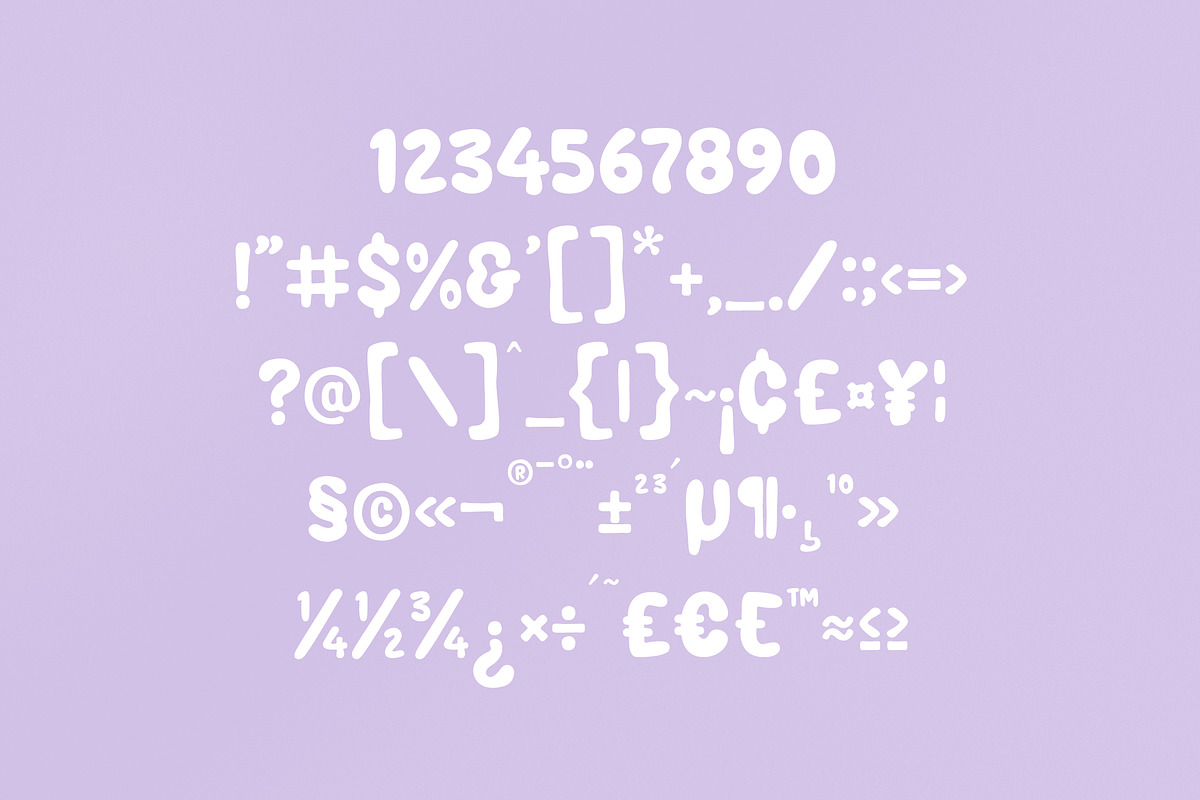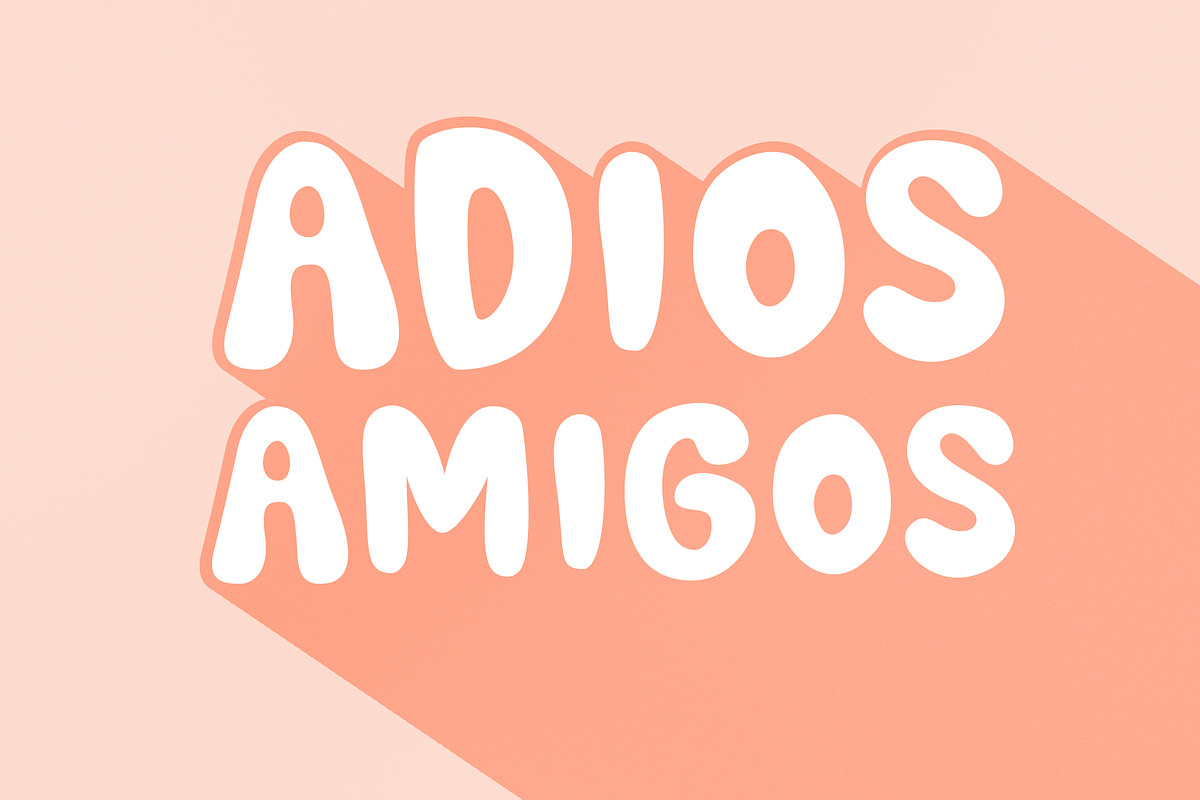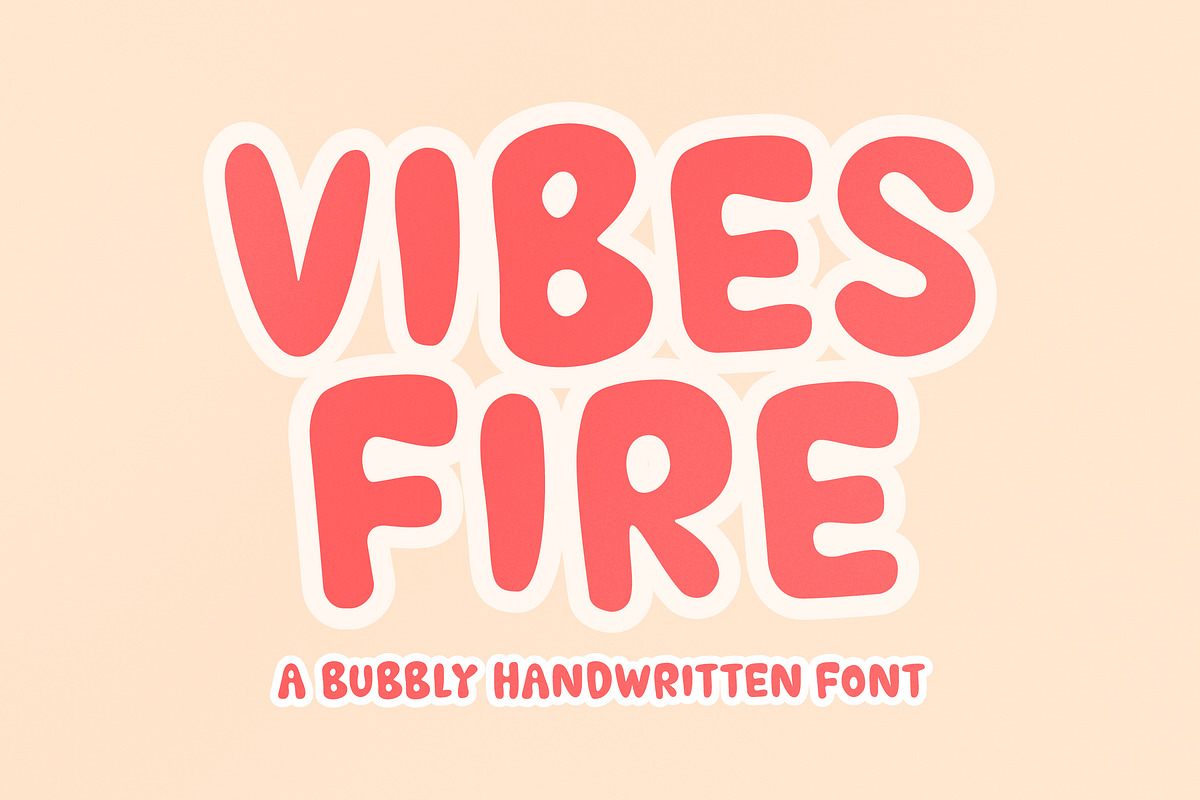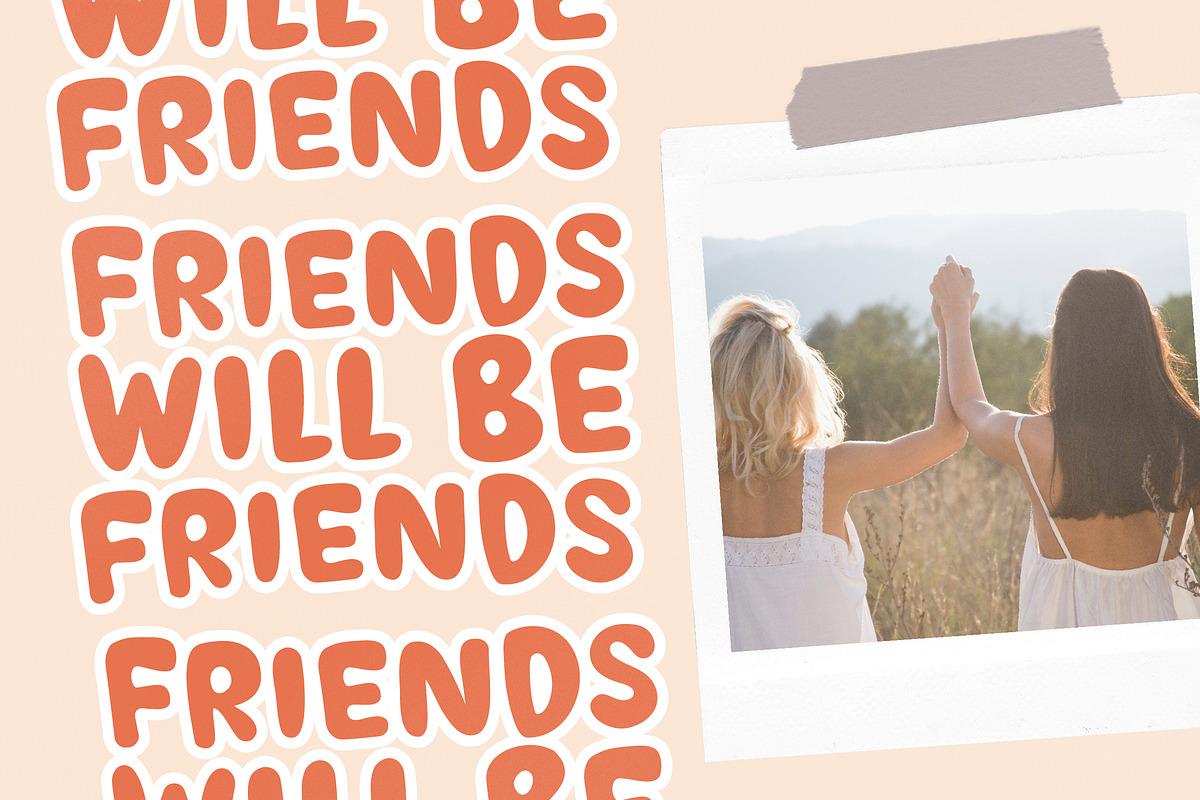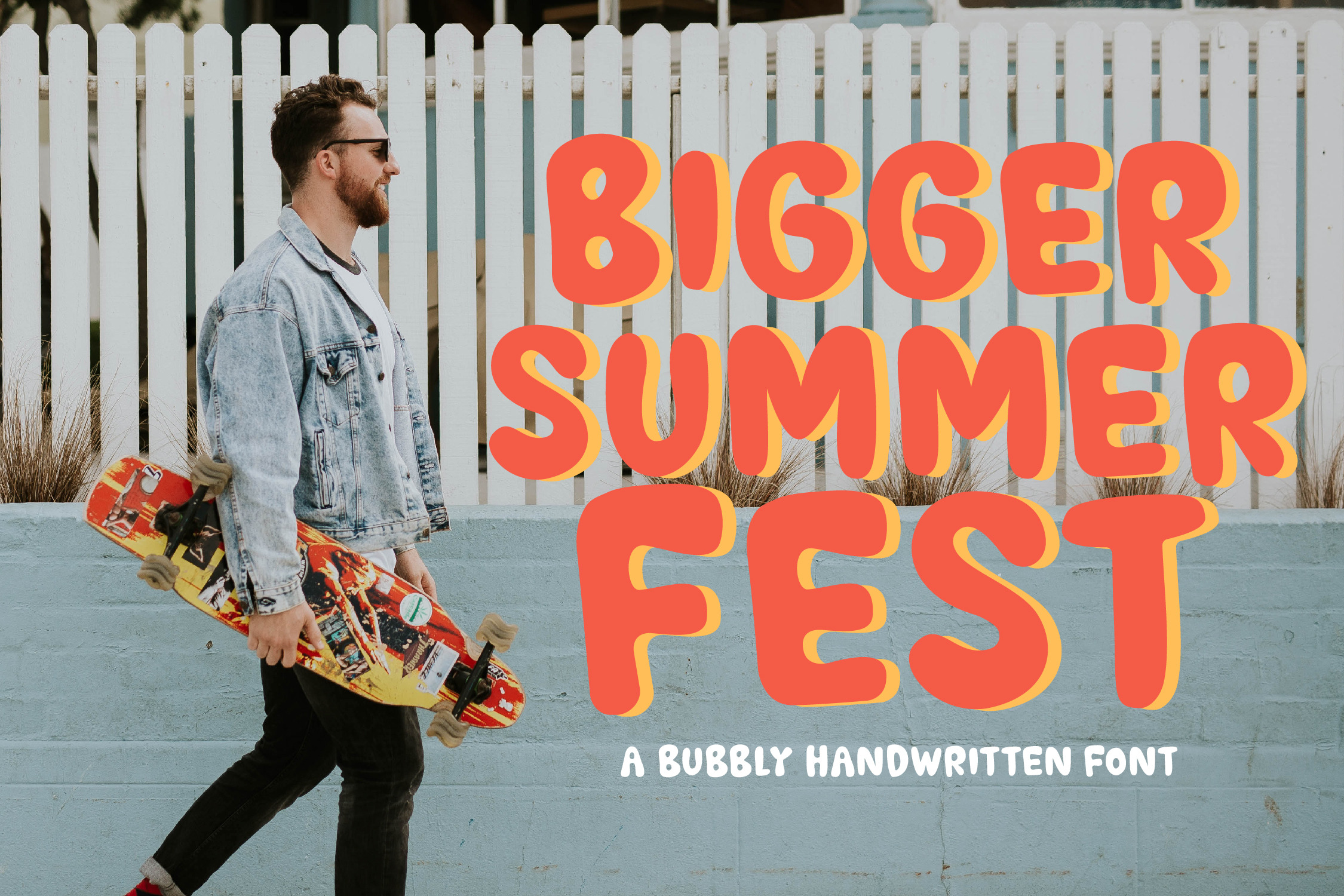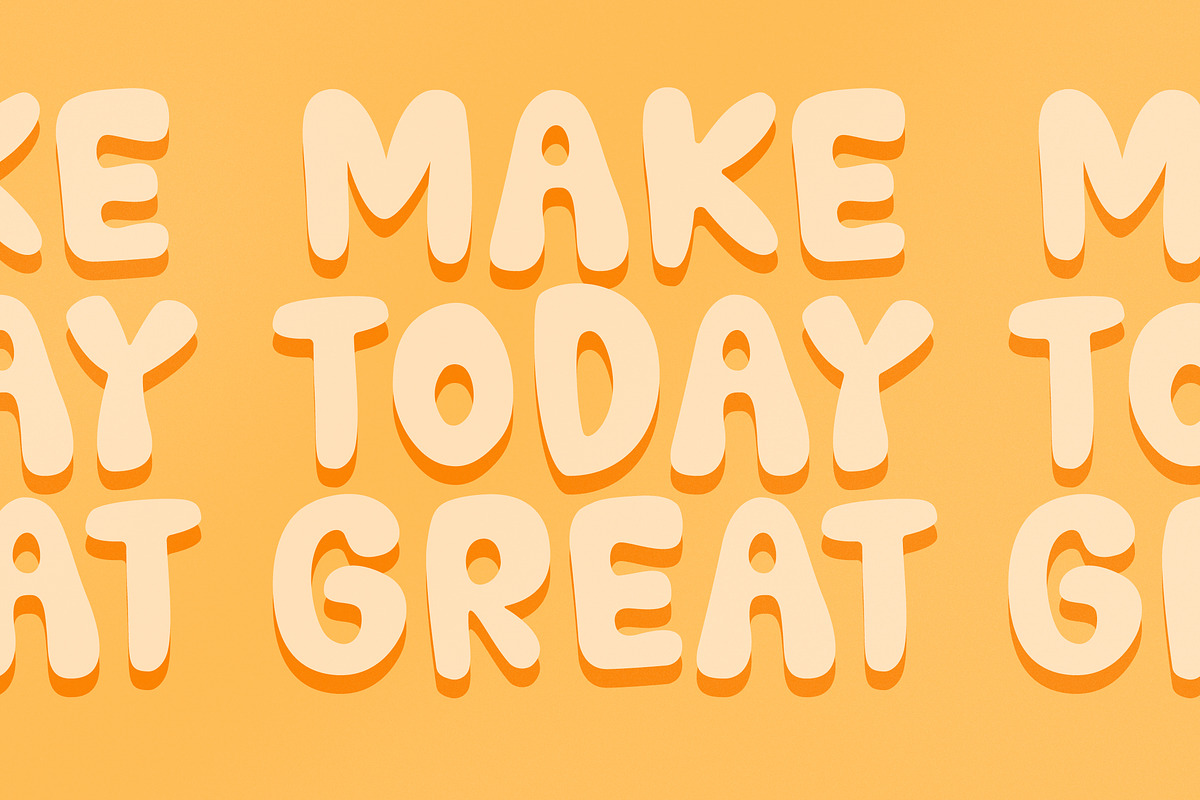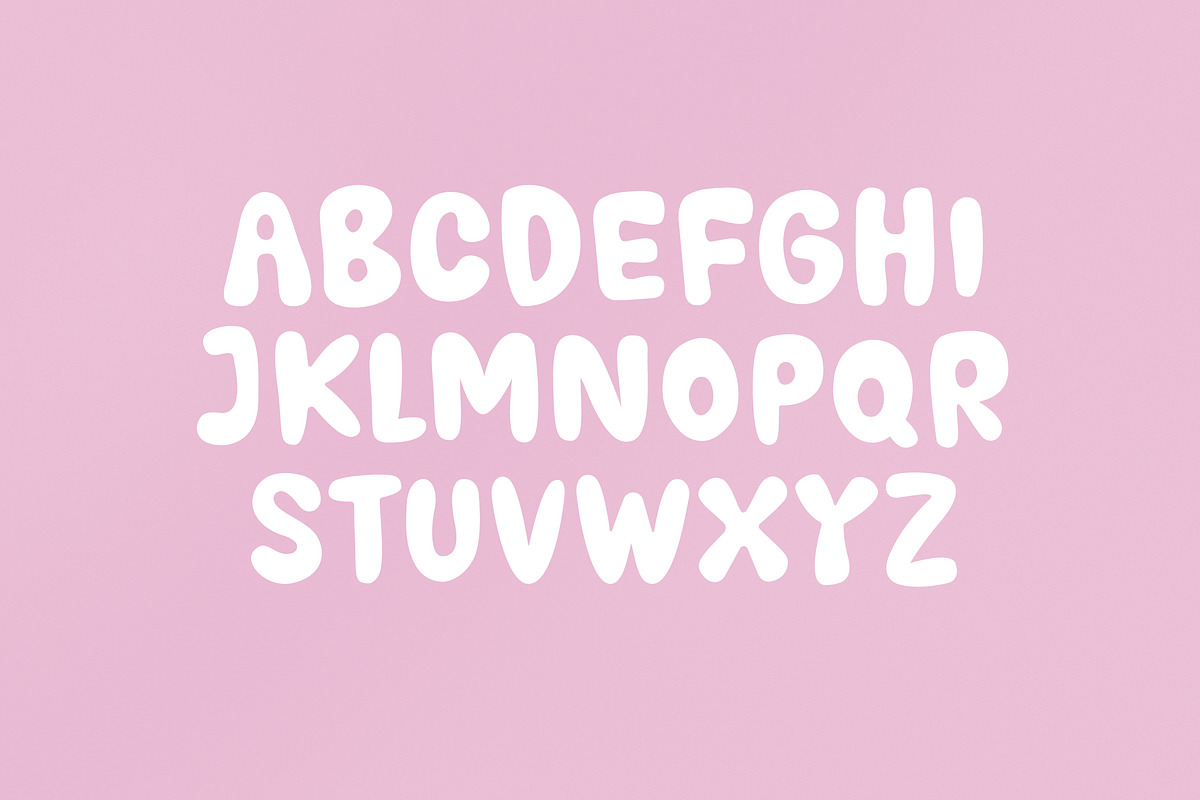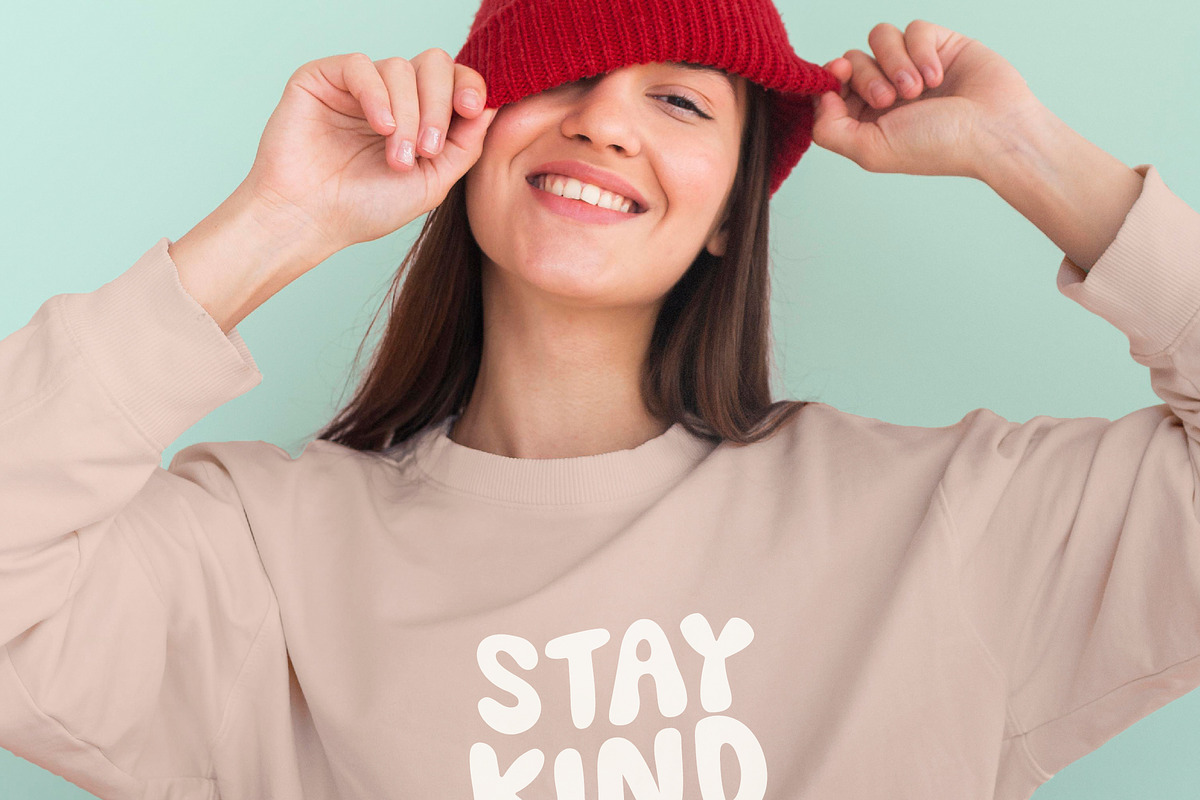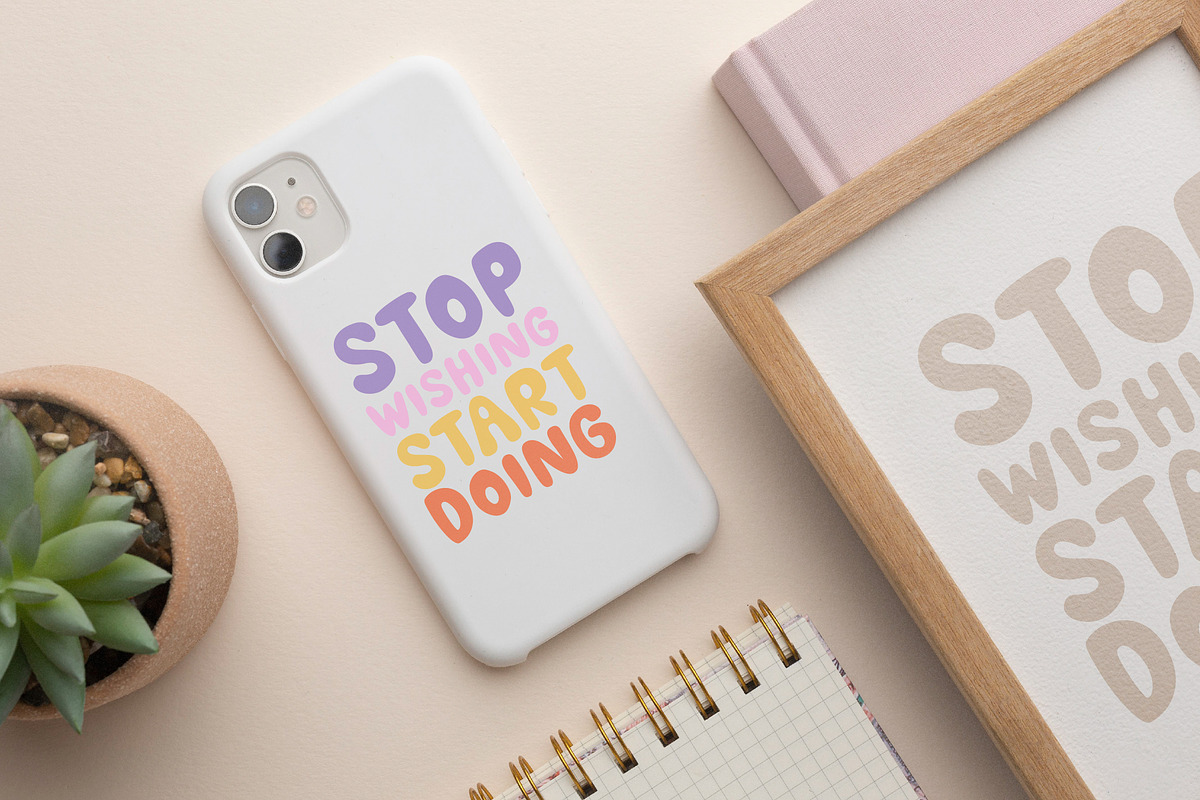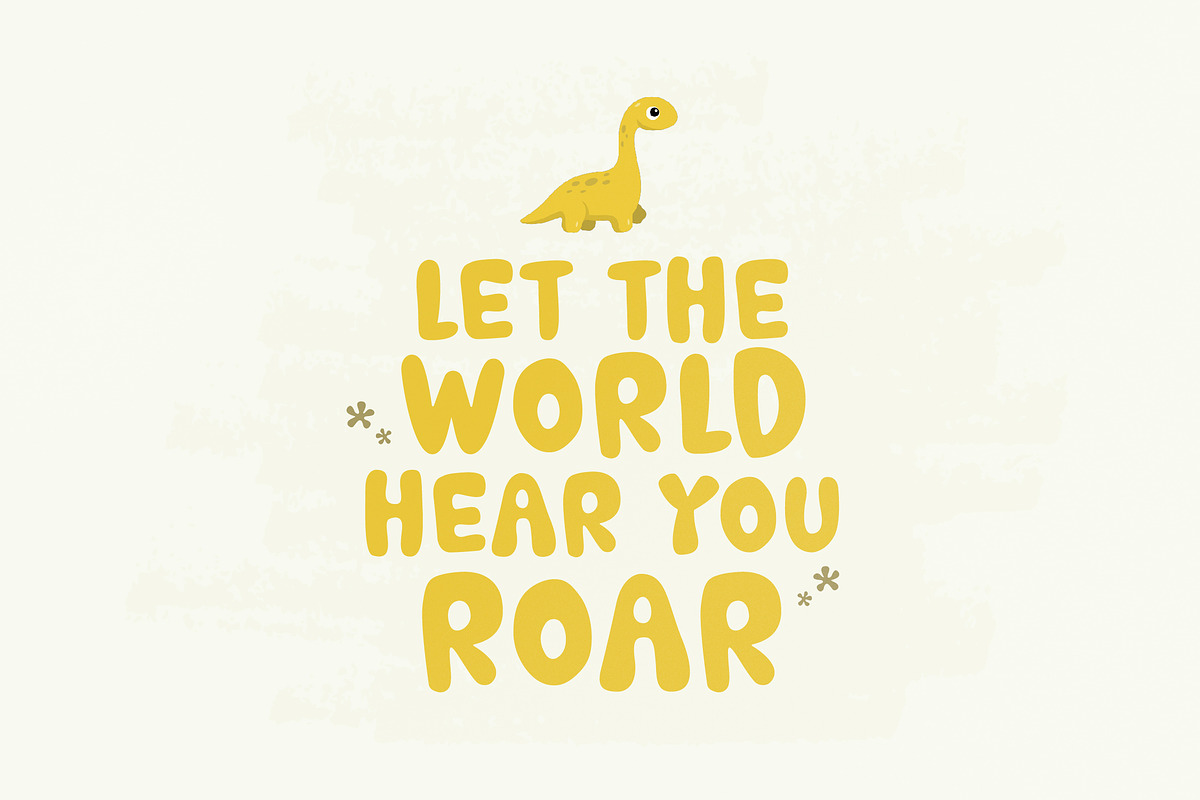
Bigger Summer Fest Bubbly Font
Proudly present BIGGER SUMMER FEST Typeface , created by Storytype, A serif modern and classic typeface that has own unique style & modern look. This typeface is perfect for an elegant & luxury logo, book or movie title design, fashion brand, magazine, clothes, lettering, quotes, and so much more.